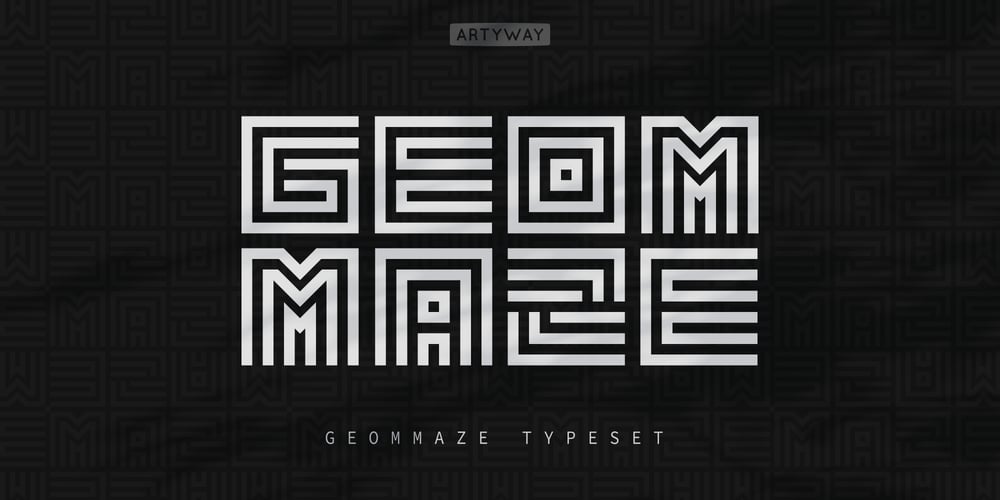
Geommaze Font Family was designed by Yehor Lisnyi and published by Artyway. Geommaze contains 3 styles and family package options. If you like minimalism and geometry, symmetrical and line design, I suggest you get acquainted with the Geommaze font. I created it with love and attention to detail. It was inspired by computer chip, architectural shapes, maze of road junctions. Try “Geommaze” in these topics and the result will be really awesome!